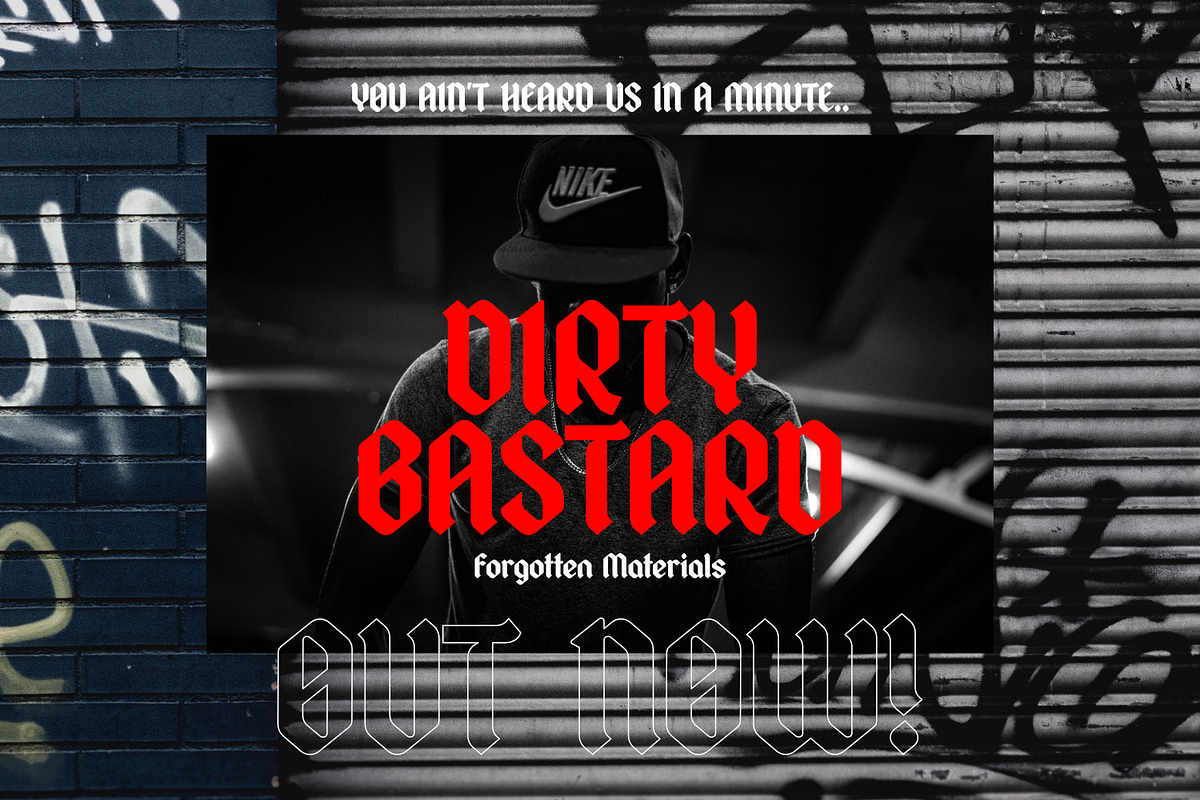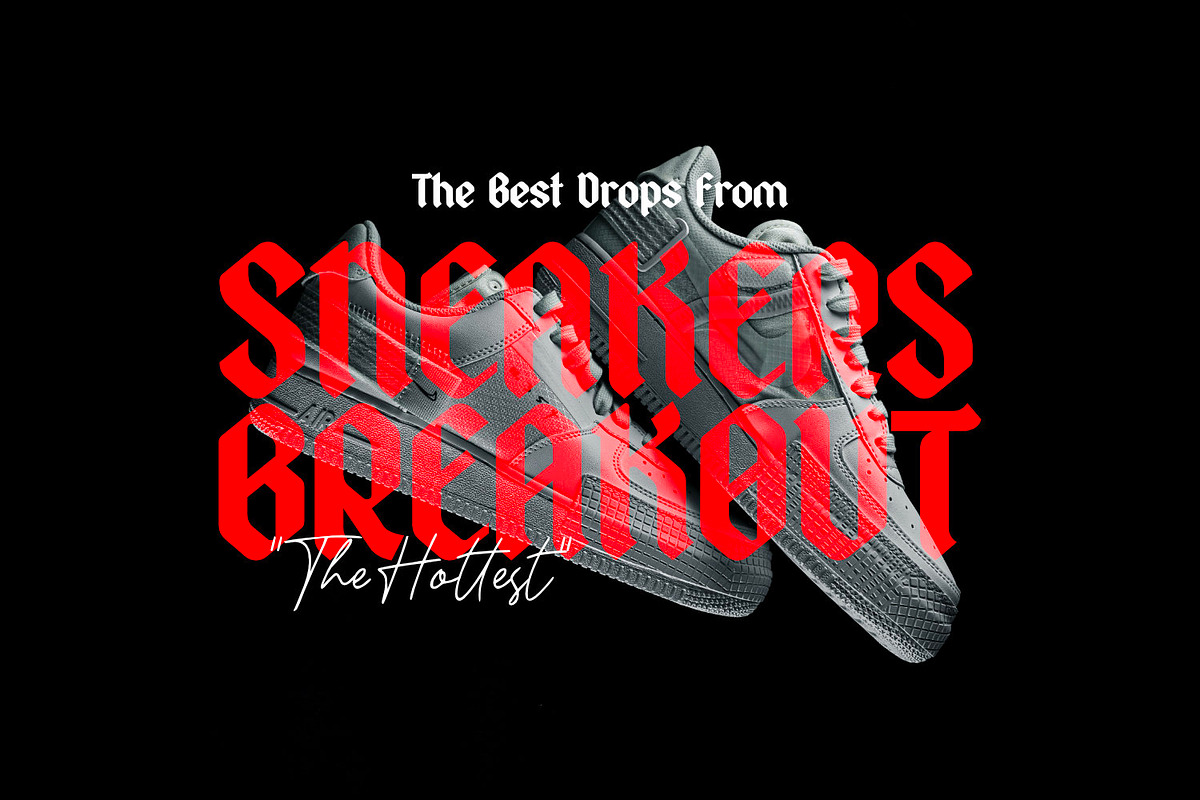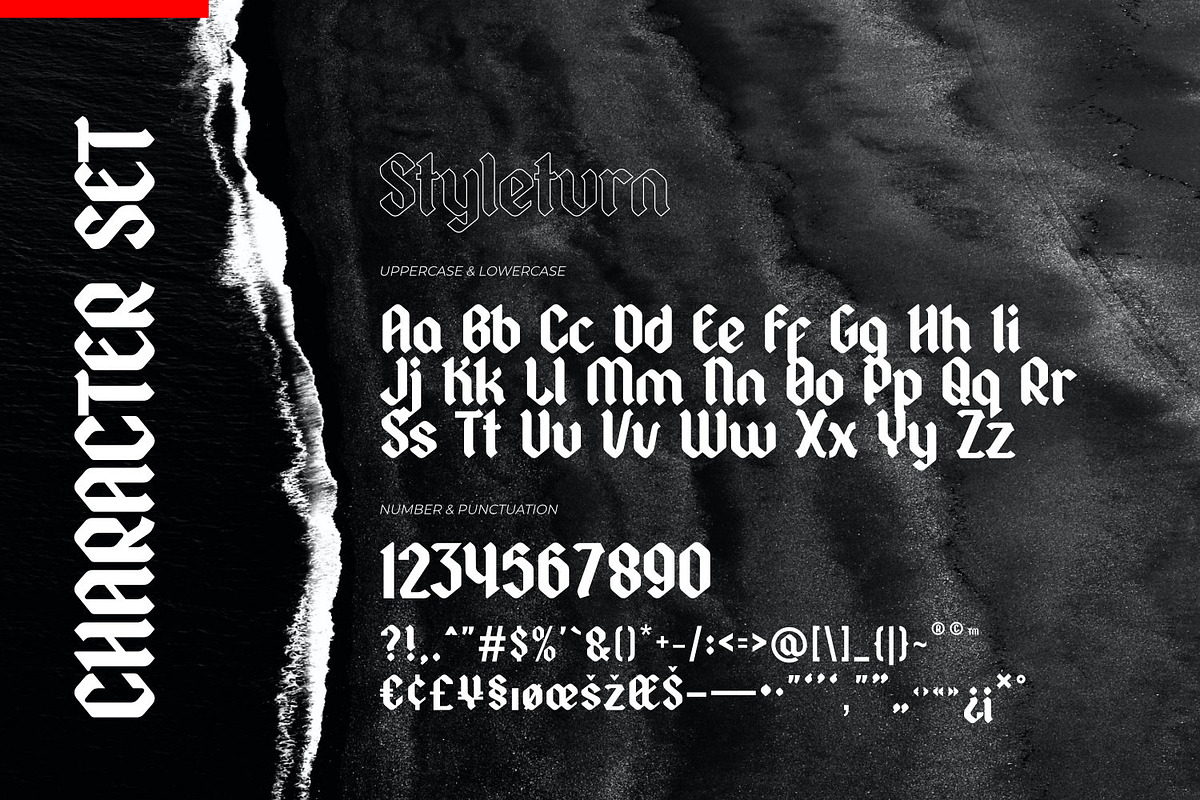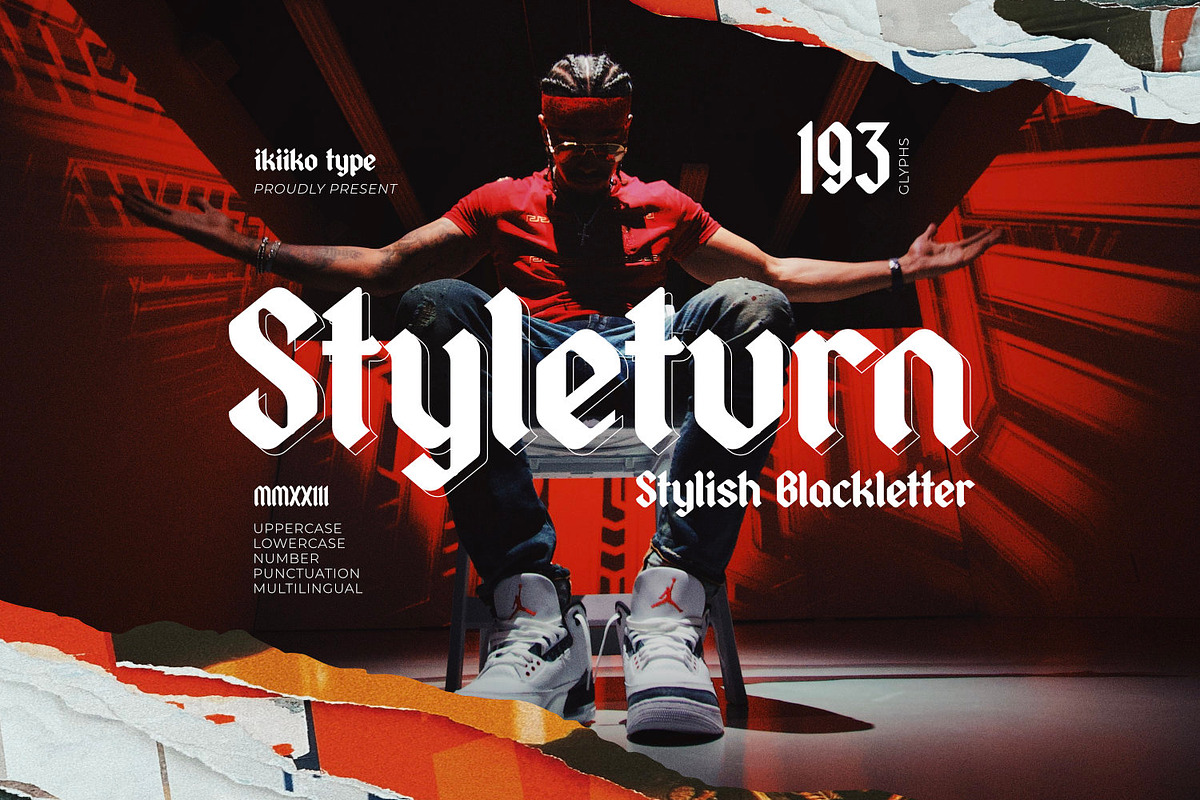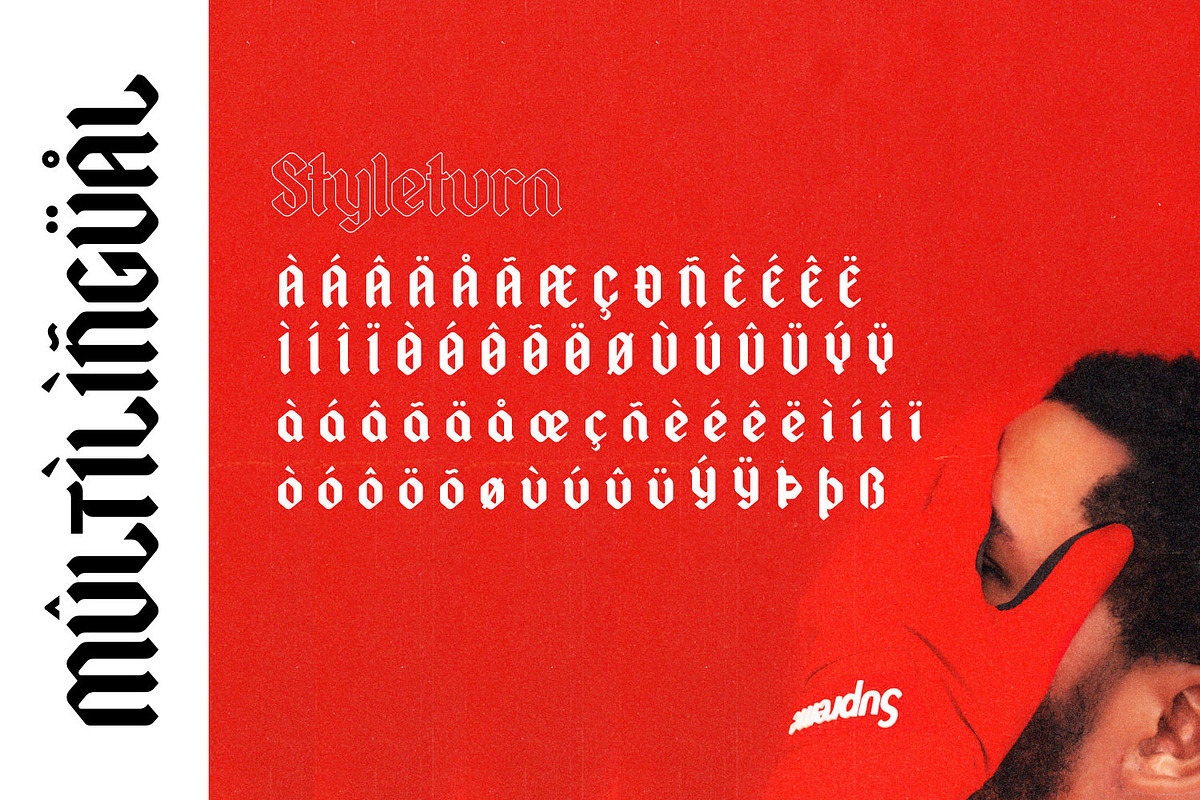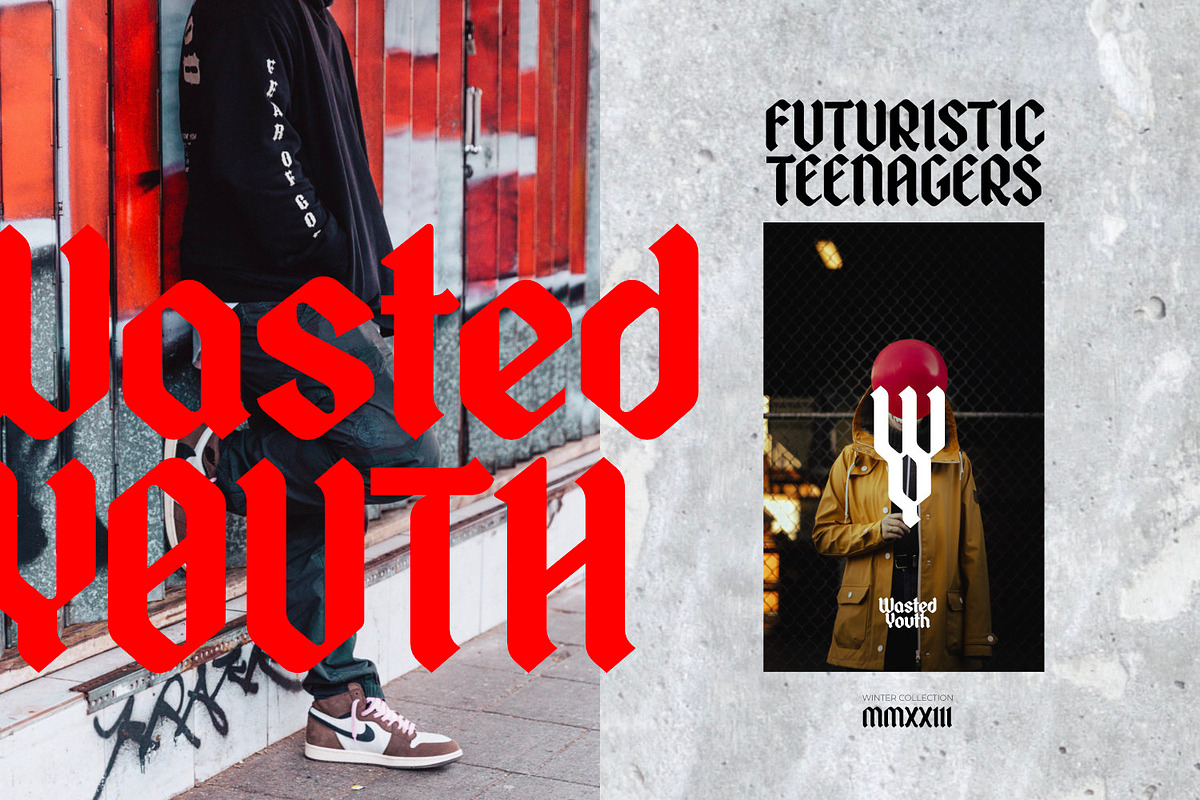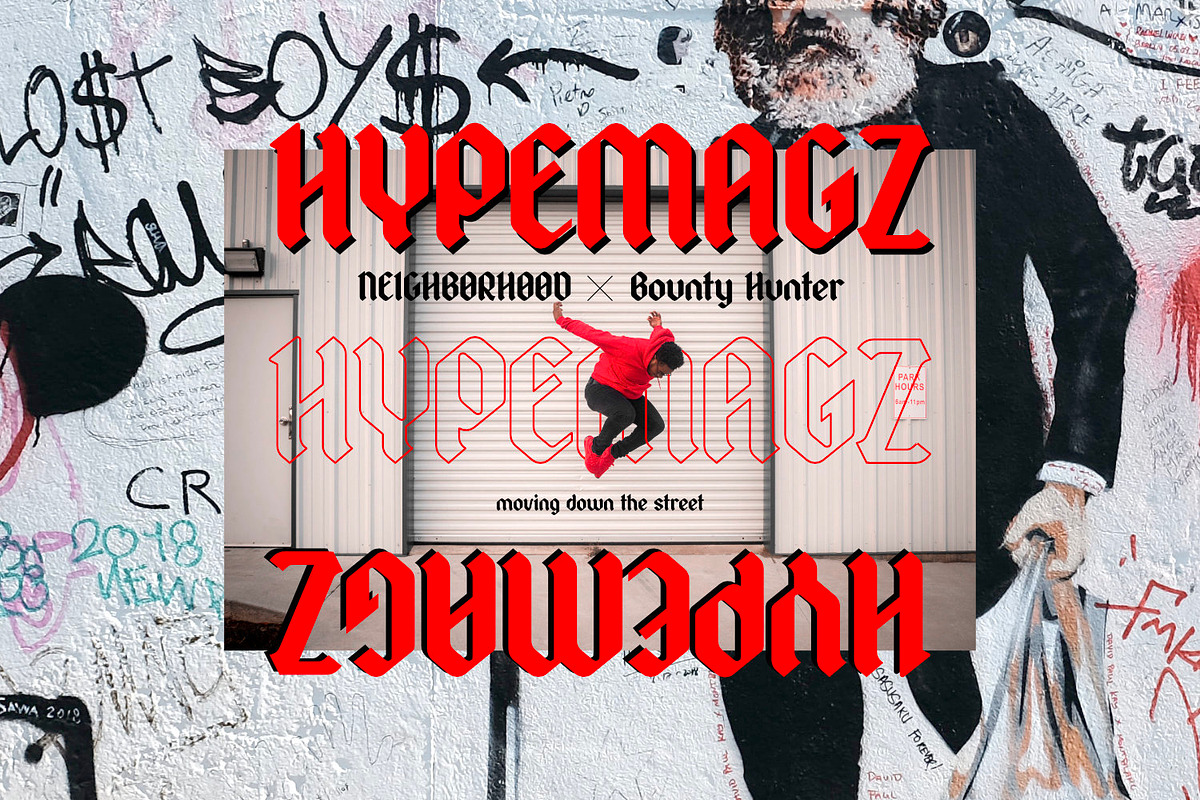
Styleturn - Stylish Blackletter
Proudly present Styleturn - Stylish Blackletter, created by ikiiko.
Styleturn is an stylish blackletter font with a more minimalist and modern form. This type has a character of hipster vibes, hip-hop, youth, urban culture, etc. This type is very suitable for making a poster, magazine layout, brand logo, sleeve cover, party flyer, quotes, or simply as a stylish text overlay to any background image.